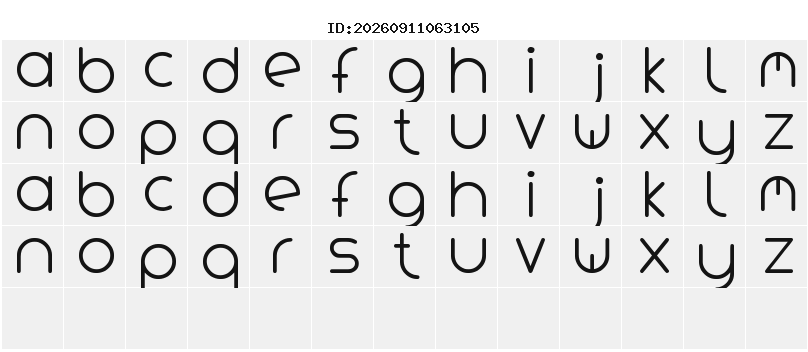
Variada tfb Preview
About Variada tfb.ttf
Variada tfb.ttf is a modern, elegant sans-serif font designed for ultimate readability and visual harmony. Perfect for branding, headlines, web design, and print materials.